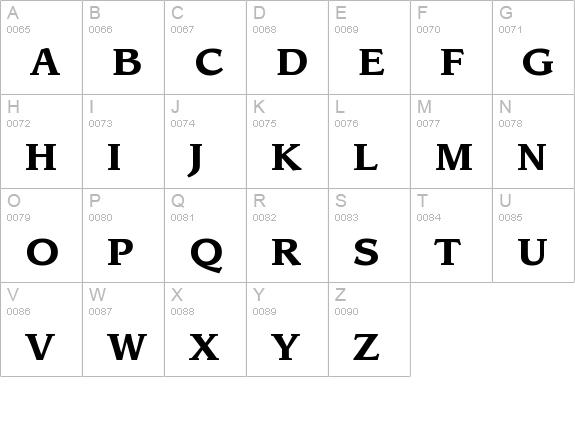
Sling Bold Font Details
Sling Bold is a strong, high-contrast variant in the Sling typeface family \xE2\x80\x94 well suited to headlines, attention-grabbing titles, and strong calls-to-action.
Introducing Sling Bold font, a striking and captivating typeface that exudes confidence and boldness. With its strong and assertive letterforms, this font commands attention and adds a touch of power to any design project. Sling Bold font is perfect for headlines, titles, logos, and any other design element that needs a strong and impactful presence. Its thick strokes and carefully crafted curves create a sense of stability and reliability, making it a versatile choice for a wide range of applications. But what makes Sling Bold font even more enticing is the fact that it is freely available to download at FontsMarket.com. Yes, you heard that right - this remarkable font can be yours without any cost. Whether you are a professional designer or an aspiring creative, you can now access this impressive typeface and elevate your work to new heights. So why wait? Embrace the power of Sling Bold font and make a bold statement in your designs. Download it now from FontsMarket.com and unleash your creativity with this remarkable and captivating typeface.